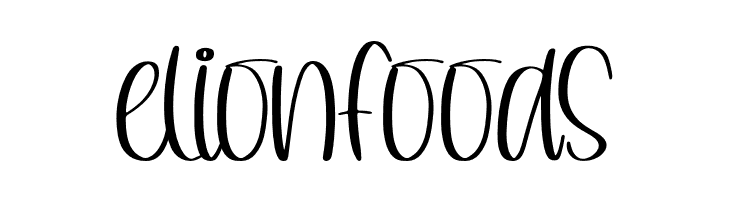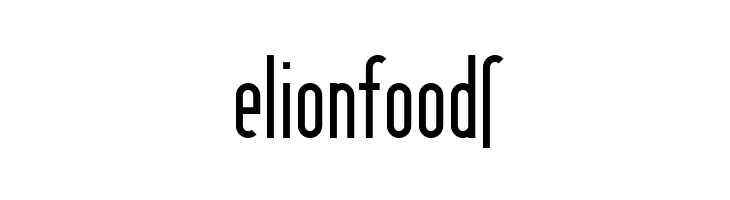
A sophisticated and elegant handwritten font with fluid, graceful strokes.
A playful, handwritten script font with dynamic, flowing lines.
A tall, narrow, and modern font with a geometric style.
A tall, narrow, and modern font with clean lines and a sleek aesthetic.
A bold, condensed sans-serif font with a modern and sleek appearance.
A bold, condensed typeface with thick, uniform strokes and minimal spacing.
A bold, outlined font with a modern and geometric style.
A bold, shadowed font with a modern and decorative style.
A bold, condensed font with a modern and sleek appearance.
A bold, tall serif font with strong vertical emphasis and pronounced serifs.